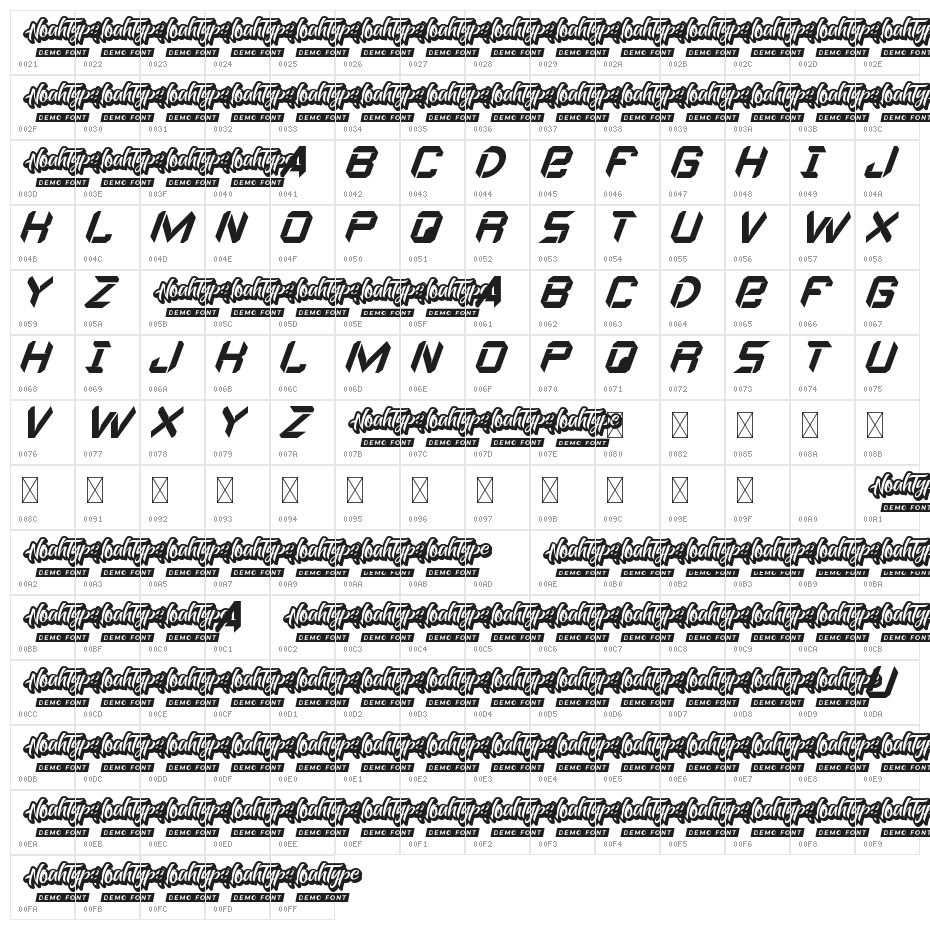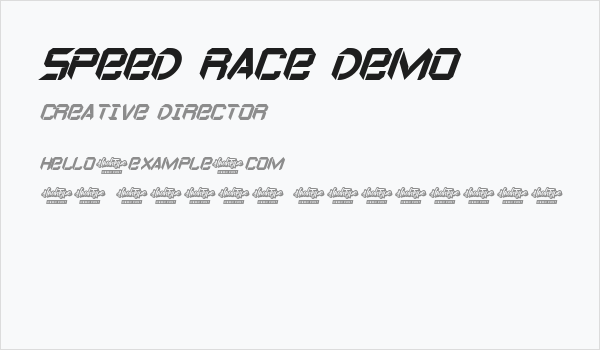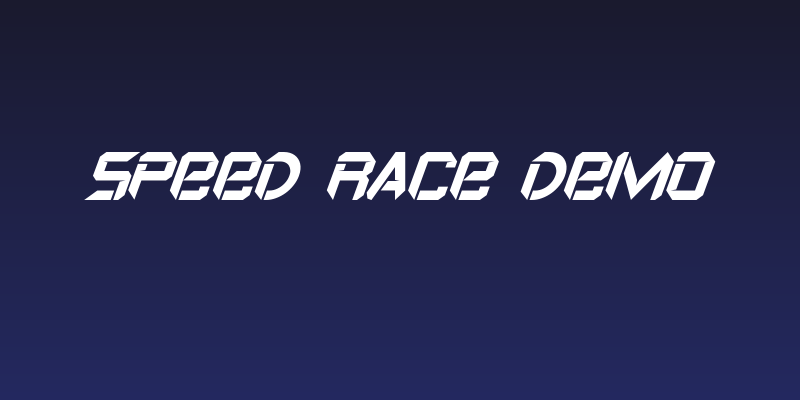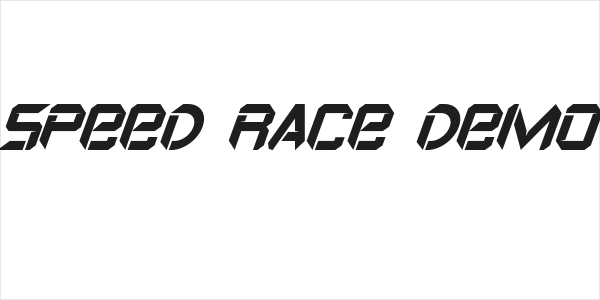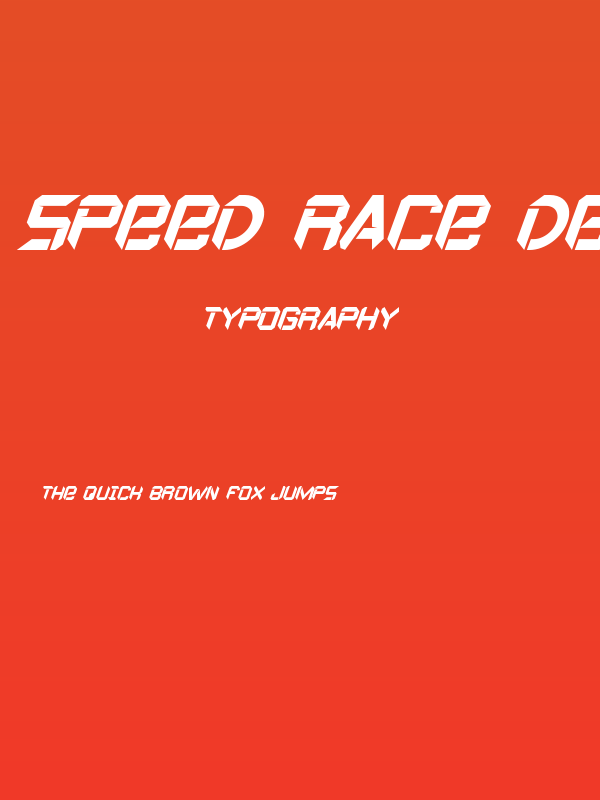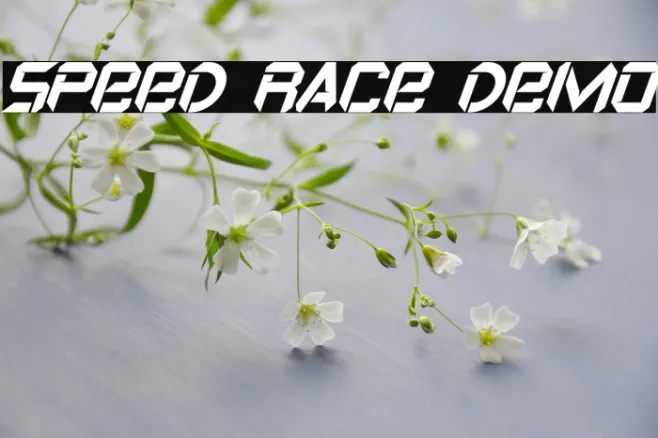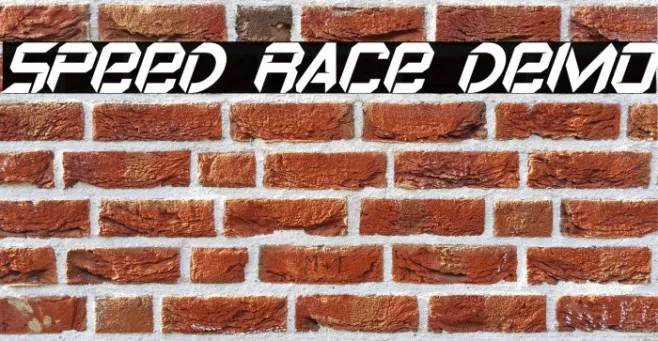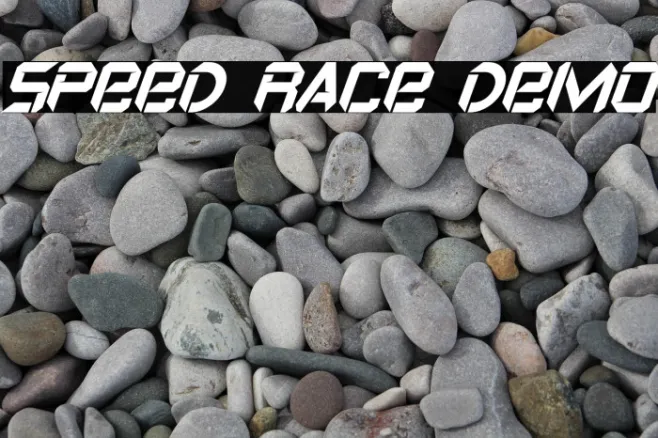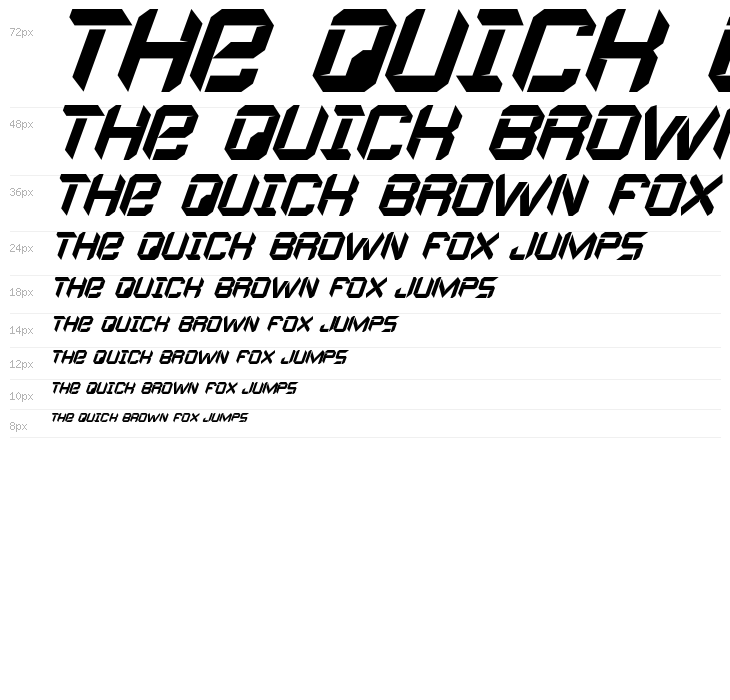
Speed Race Demo Font
Speed Race Demo Description
This font features a bold, angular design with a futuristic and dynamic appearance. The characters are sharply cut with a geometric style, giving a sense of speed and motion. The uppercase letters are particularly striking, with a consistent slant that enhances the font's energetic feel. The absence of curves and the use of straight lines and sharp angles create a modern and edgy look. The font is highly legible, even at smaller sizes, making it versatile for various design applications. Its unique style is reminiscent of racing and automotive themes, making it ideal for projects that require a sense of movement and excitement.
| Proposed Projects | Ideal for automotive branding, sports team logos, racing event posters, and dynamic video game titles. |